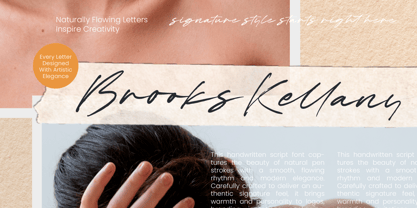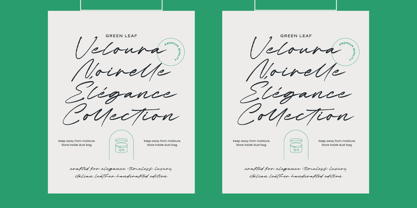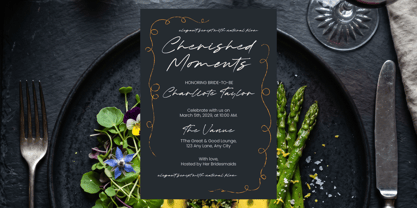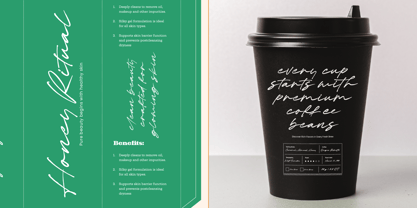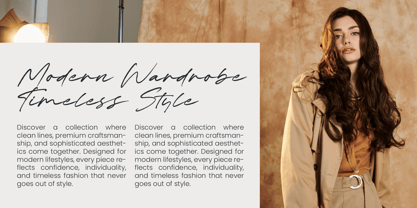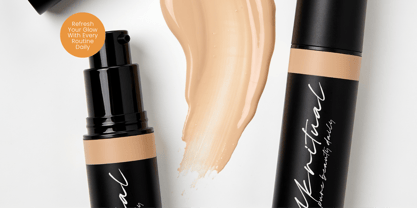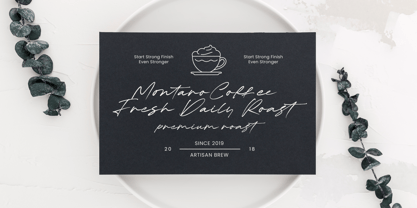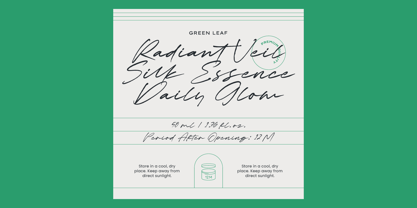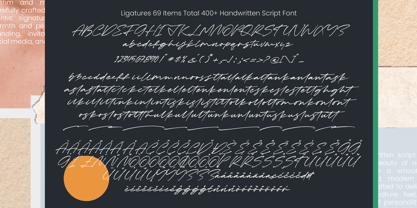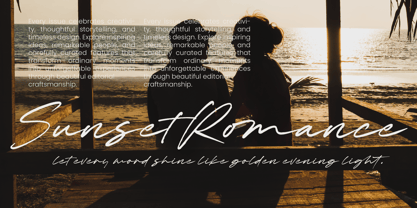
Brooks Kellany
by Letterena Studios
The Brooks Kellany Font Family was designed by Heru Utama Putra and published by Letterena Studios. Brooks Kellany contains 2 styles and family package options. More about this family
Brooks Kellany - Handwritten Script Font
Elevate your design identity with the effortless sophistication of Brooks Kellany - Handwritten Script Font. This modern script captures the beauty of natural pen strokes, offering a smooth, flowing rhythm that perfectly mimics high-end calligraphy. Designed with an authentic signature feel, it brings immediate warmth and personality to any layout, making it the ultimate choice for designers seeking a hand-drawn aesthetic with professional refinement.